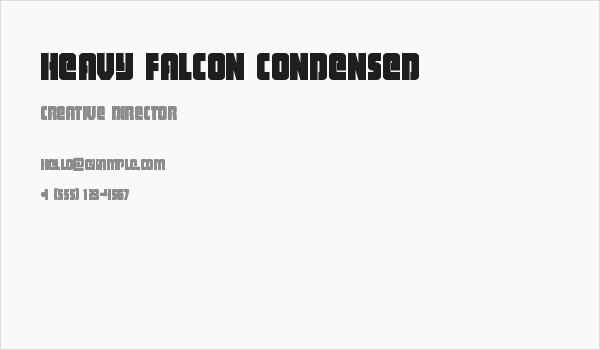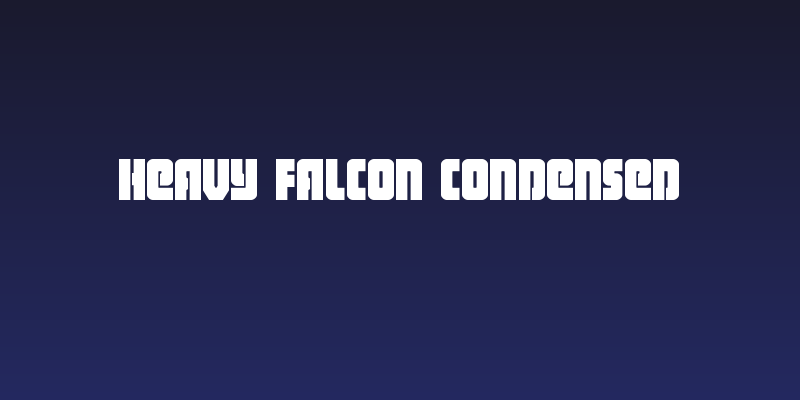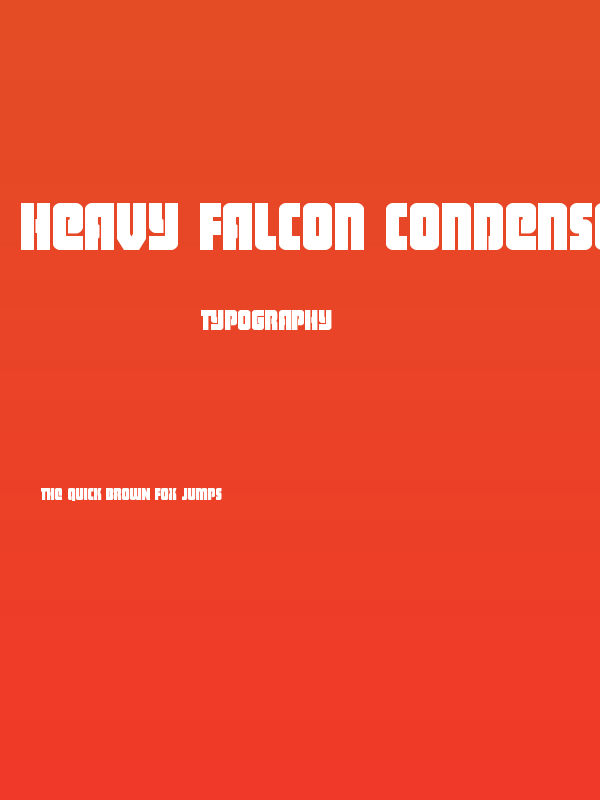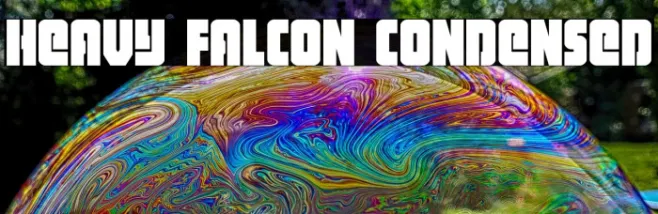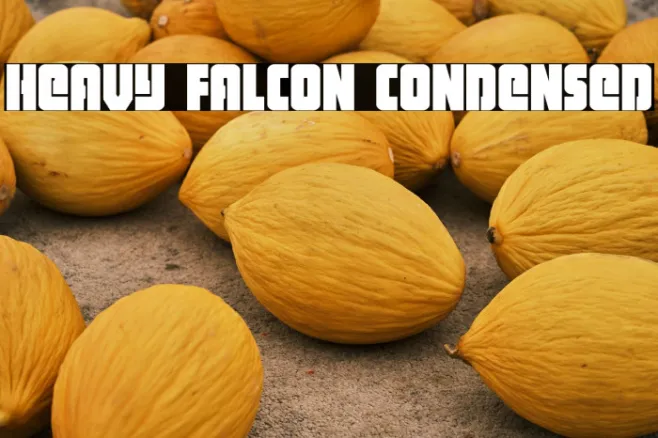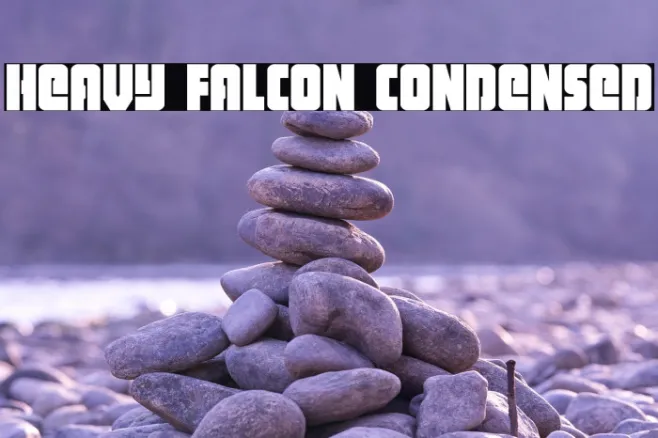
Heavy Falcon Condensed Font
Heavy Falcon Condensed Description
This font features a bold and condensed style, characterized by its thick, block-like letters with minimal spacing between characters. The uppercase and lowercase letters maintain a consistent weight, contributing to a uniform and impactful appearance. The numerals and special characters are designed to match the boldness of the alphabet, ensuring a cohesive look across all text. The font's geometric shapes and sharp angles give it a modern and assertive feel, making it suitable for attention-grabbing designs.
| Proposed Projects | Ideal for posters, headlines, branding, and any design requiring a strong visual impact. |